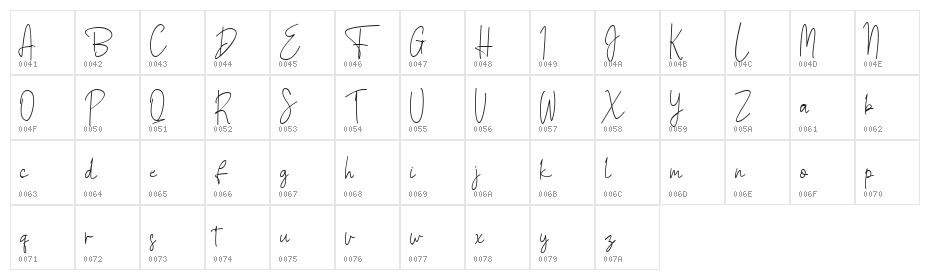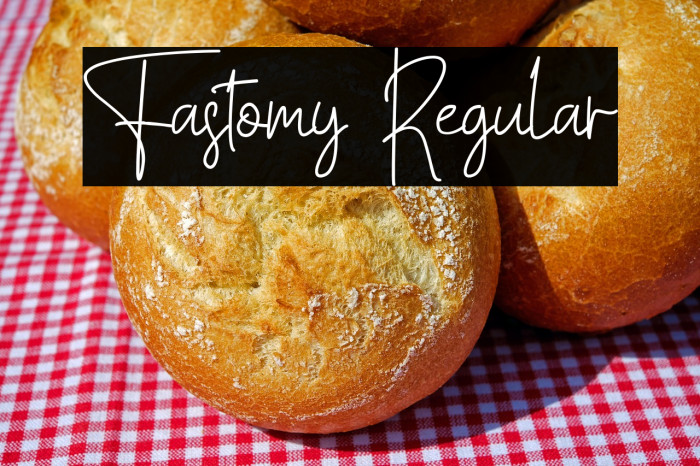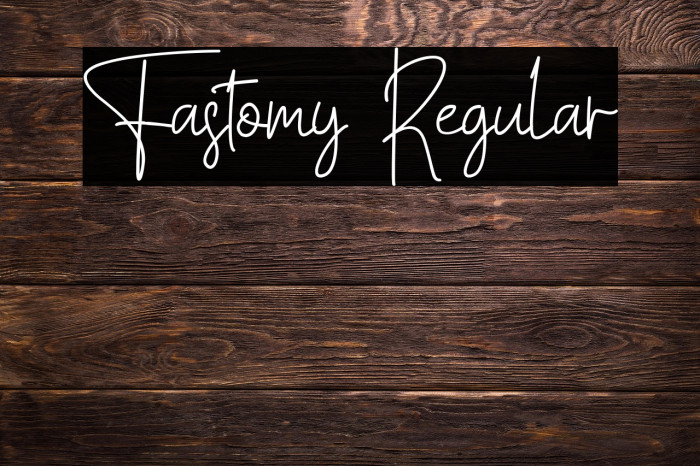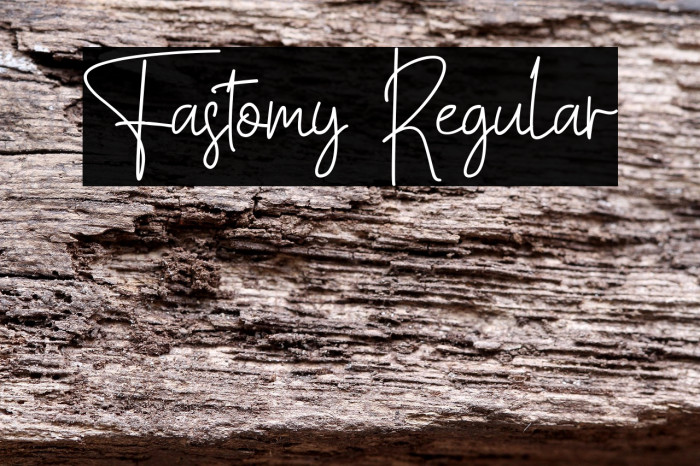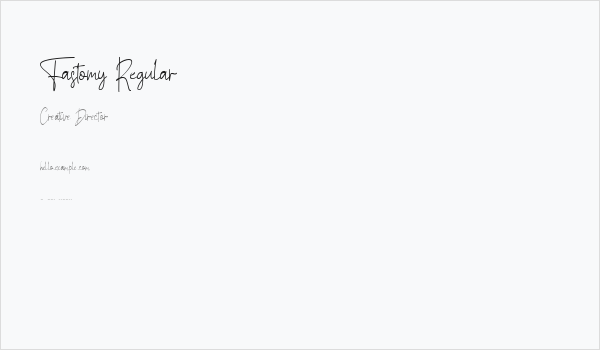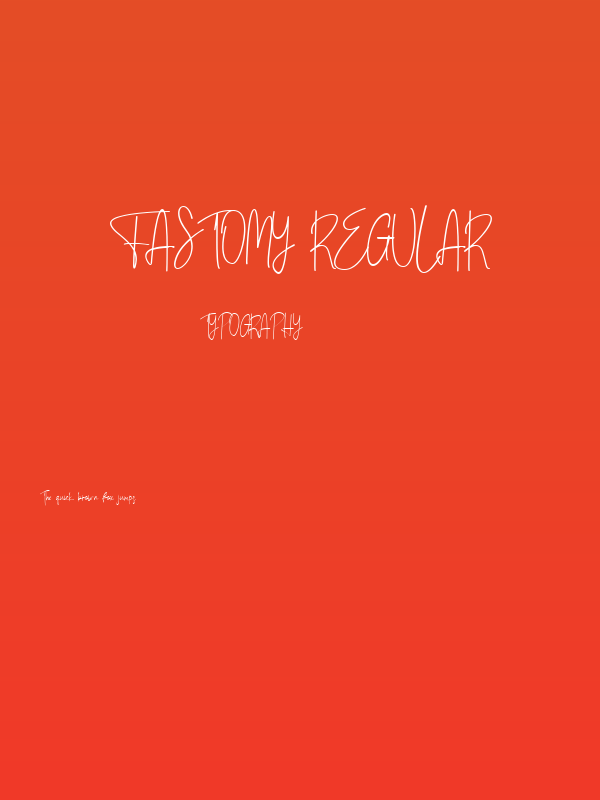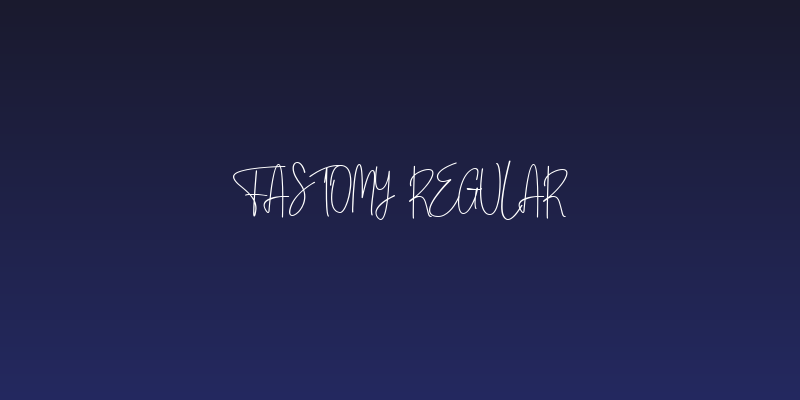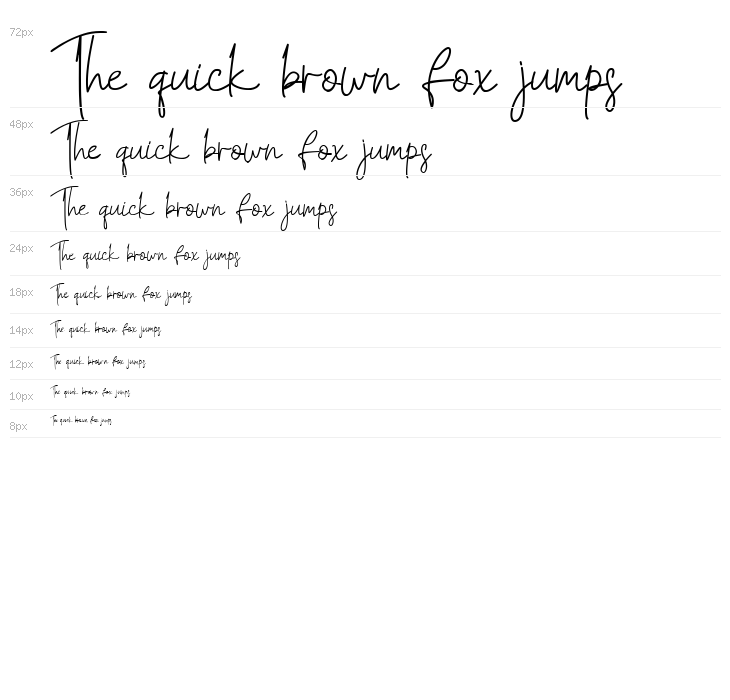
Fastomy Regular Font
Fastomy Regular Description
This font features a playful and dynamic handwritten style, characterized by its flowing and interconnected letterforms. The strokes are thin and exhibit a casual elegance, with a slight slant that adds to its informal appearance. The uppercase letters are tall and narrow, while the lowercase letters maintain a consistent height, creating a harmonious balance. The font's overall look is both whimsical and sophisticated, making it suitable for a variety of creative applications. Its unique style is perfect for projects that require a personal touch, such as invitations, greeting cards, and artistic branding.
| Proposed Projects | Ideal for invitations, greeting cards, artistic branding, and any project needing a personal touch. |